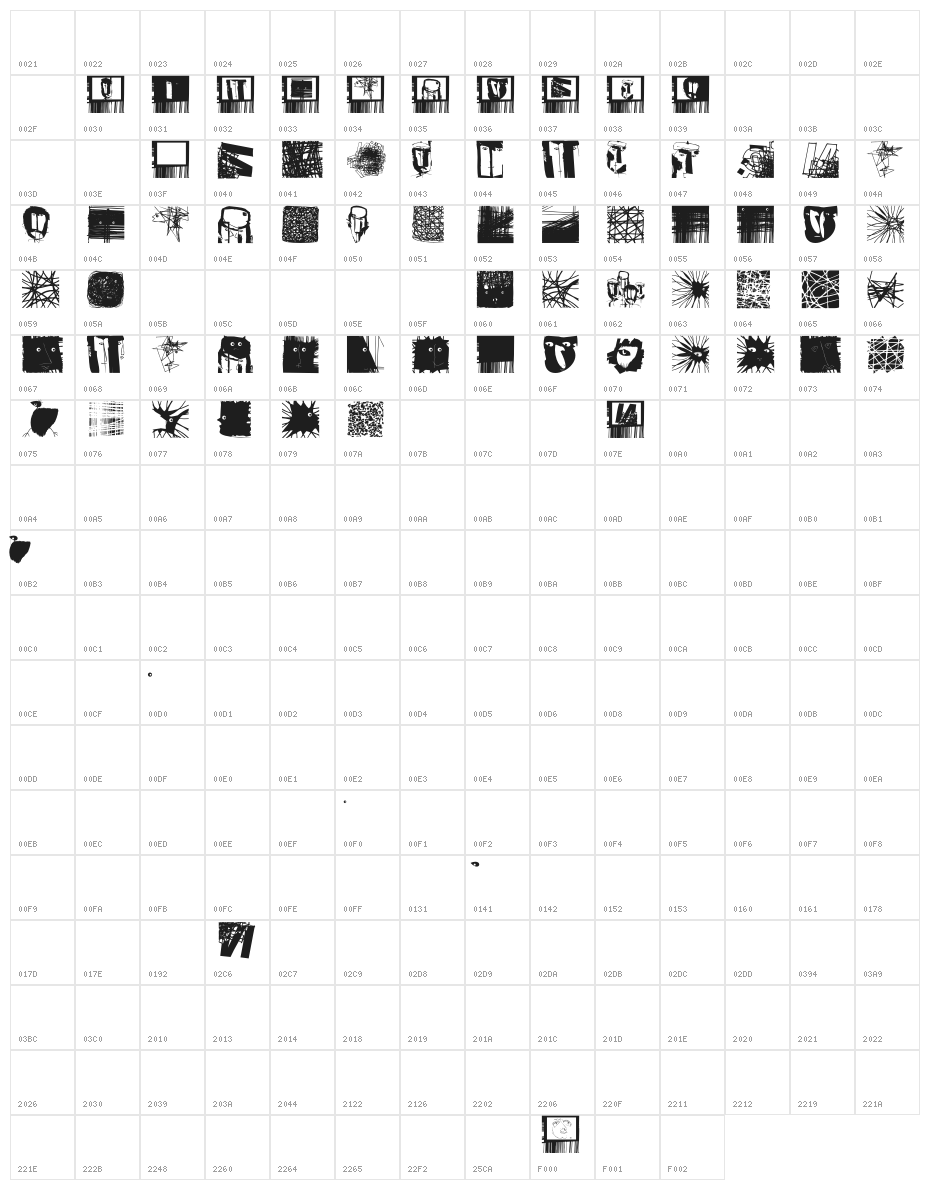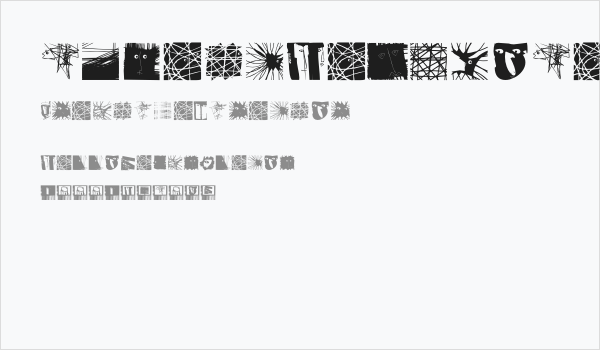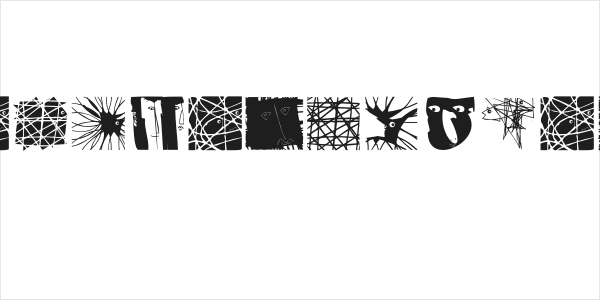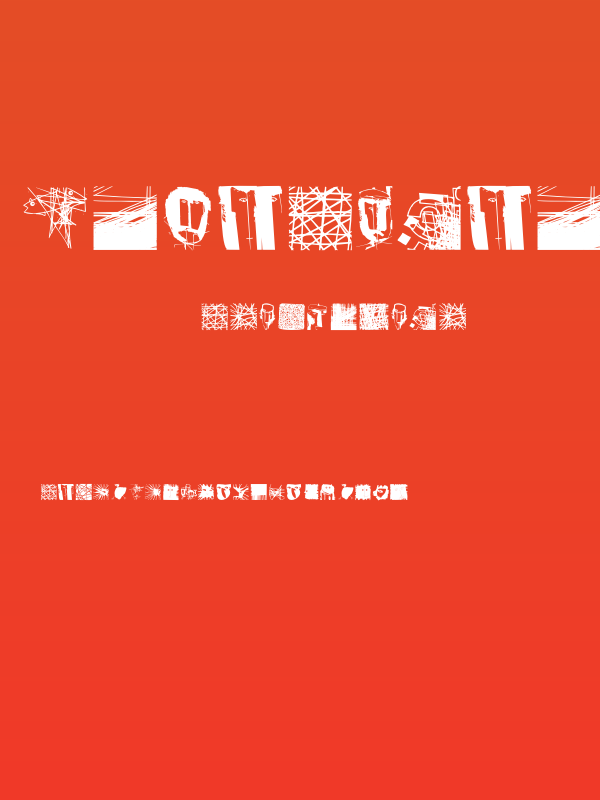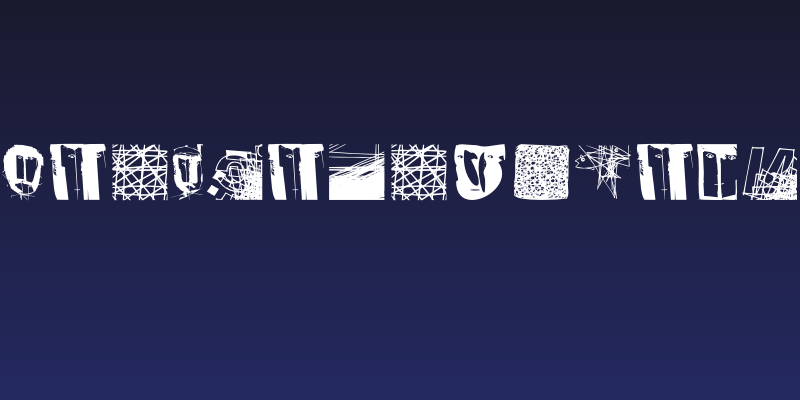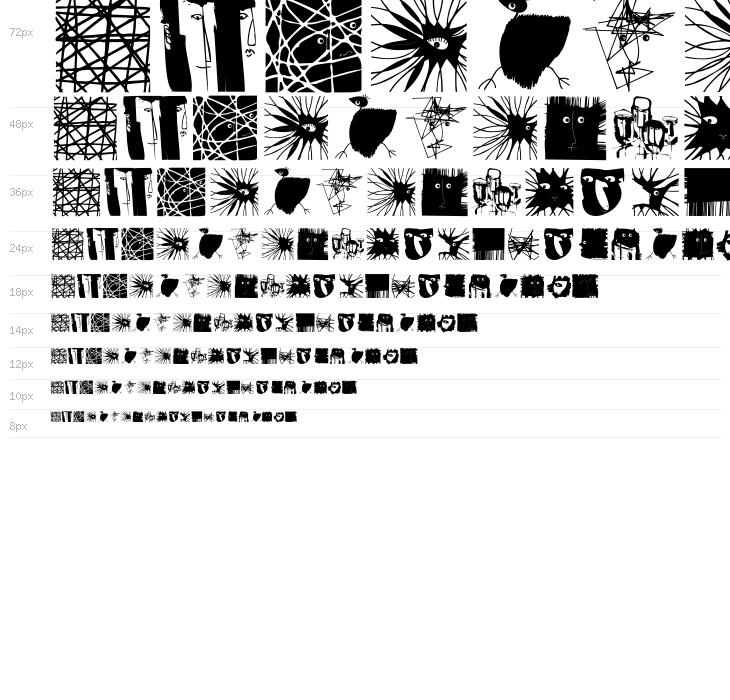
MSketchesTwo Medium Font
MSketchesTwo Medium Description
This font is a highly creative and abstract design, featuring characters that are constructed with a mix of chaotic lines, shapes, and textures. Each letter and symbol appears as a unique piece of art, with heavy use of black and white contrast to create a striking visual impact. The characters are enclosed in square frames, adding a structured element to the otherwise wild and freeform design. This font is not intended for readability but rather for artistic expression, making it ideal for projects that require a bold and unconventional aesthetic.
| Use Case | Logos, Posters, Art projects |
| Proposed Projects | Ideal for art projects, album covers, posters, and any creative work that benefits from a bold, artistic statement. |